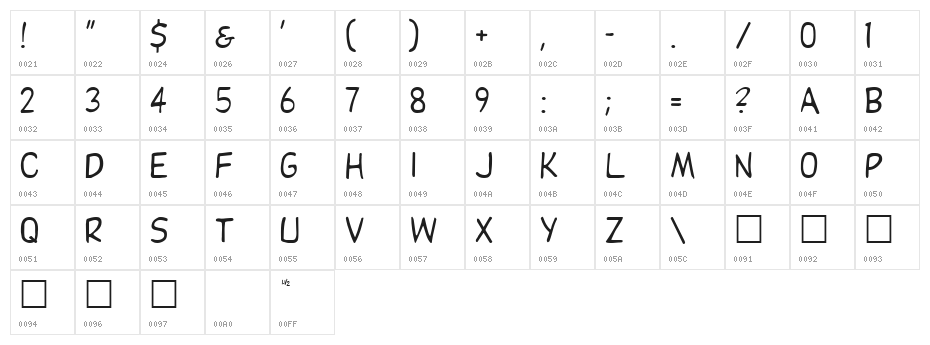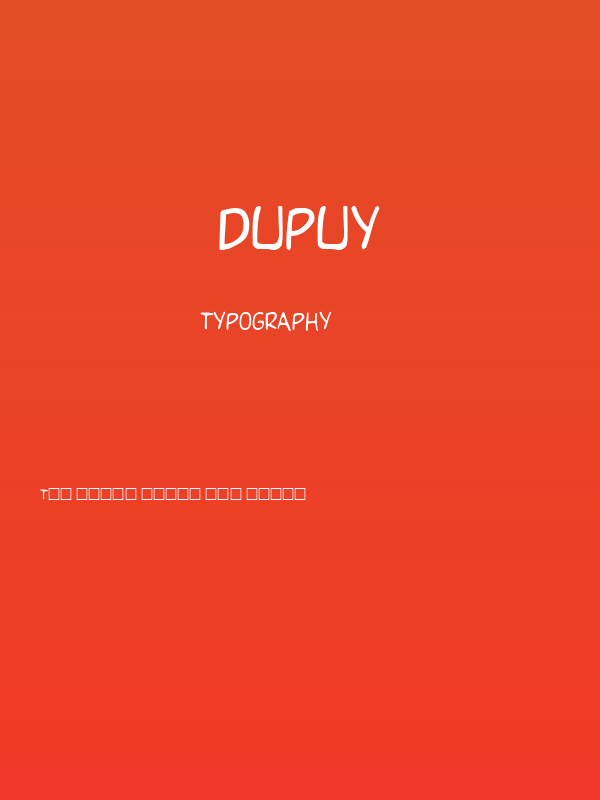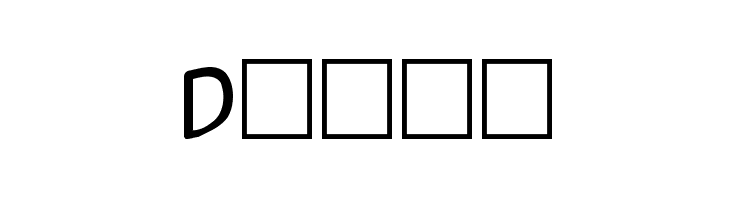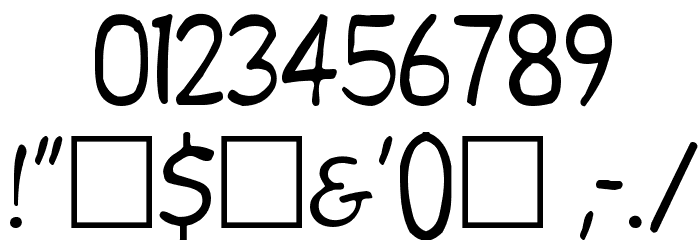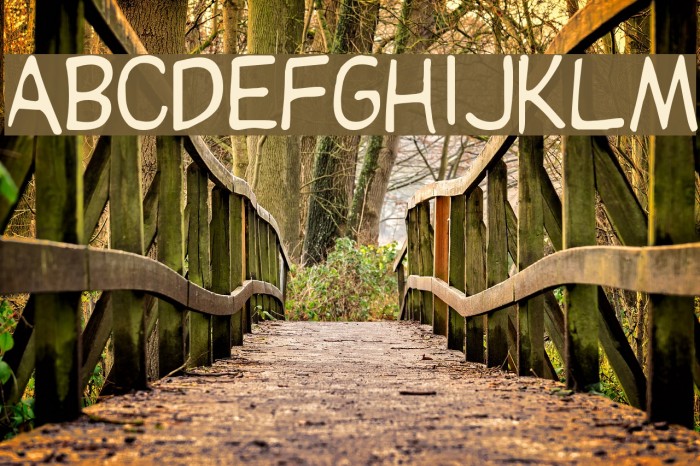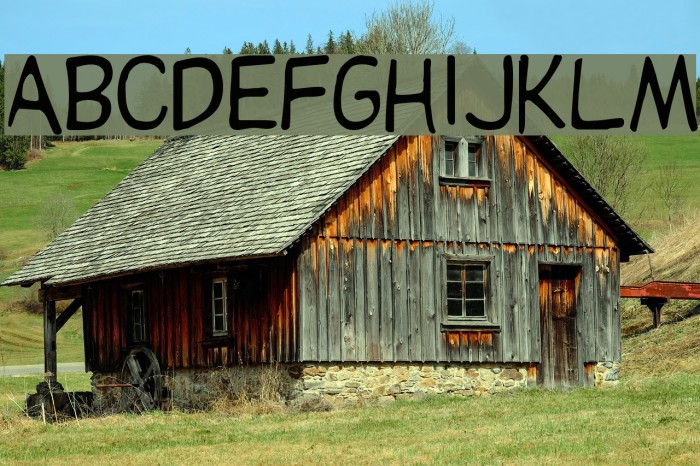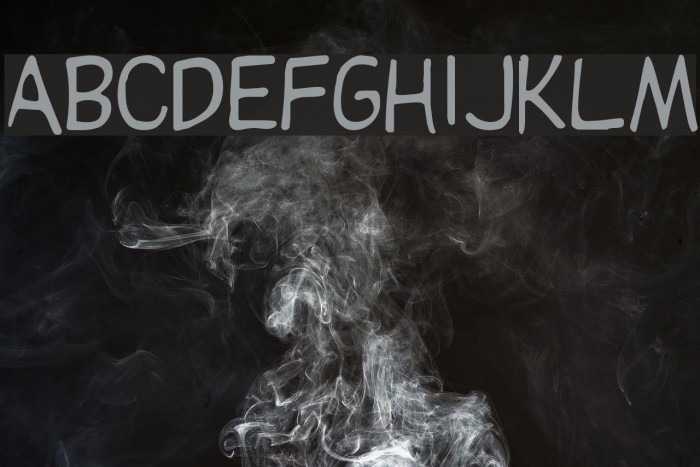
Dupuy Font
Dupuy Description
This font features a playful and casual handwritten style, characterized by its rounded and slightly irregular letterforms. The uppercase letters are bold and prominent, with a consistent stroke width that gives a uniform appearance. The numerals and special characters maintain the same playful aesthetic, making them easily readable and visually appealing. The font's informal style makes it suitable for projects that require a personal touch or a friendly vibe.
| Proposed Projects | Ideal for children's books, greeting cards, casual invitations, and playful branding. |